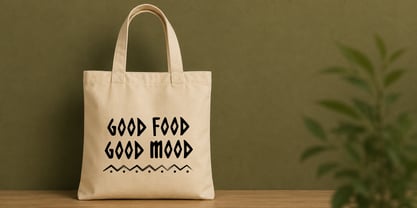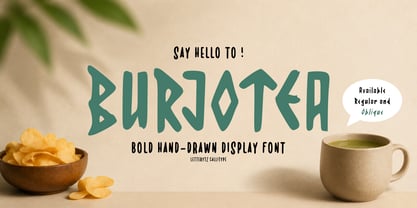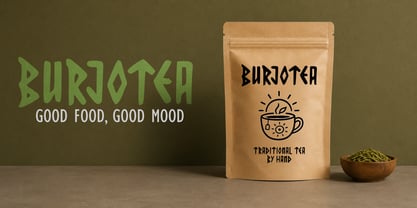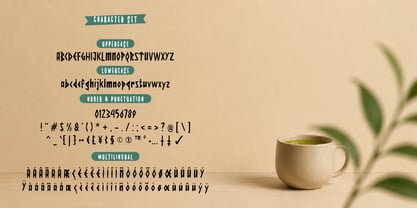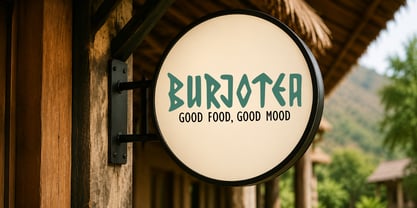
Burjotea
by Letterytz CalliType
The Burjotea Font Family was designed by Wahyu Eka Prasetya, Dian Angga Marytama and published by Letterytz CalliType. Burjotea contains 2 styles and family package options. More about this family
Features
• Uppercase & Lowercase
• Numbers & Punctuation
• Multilingual Support
• Standard Ligatures
• Style: Regular and Oblique
Best For
Logos, Branding, Packaging, Product Labels, Social Media, Wedding Invitations, Posters, Book Covers, Quotes, T-Shirts, Craft Projects, Editorial Design, Advertising, and Creative Merchandise.
Designers: Wahyu Eka Prasetya, Dian Angga Marytama
Foundry: Letterytz CalliType